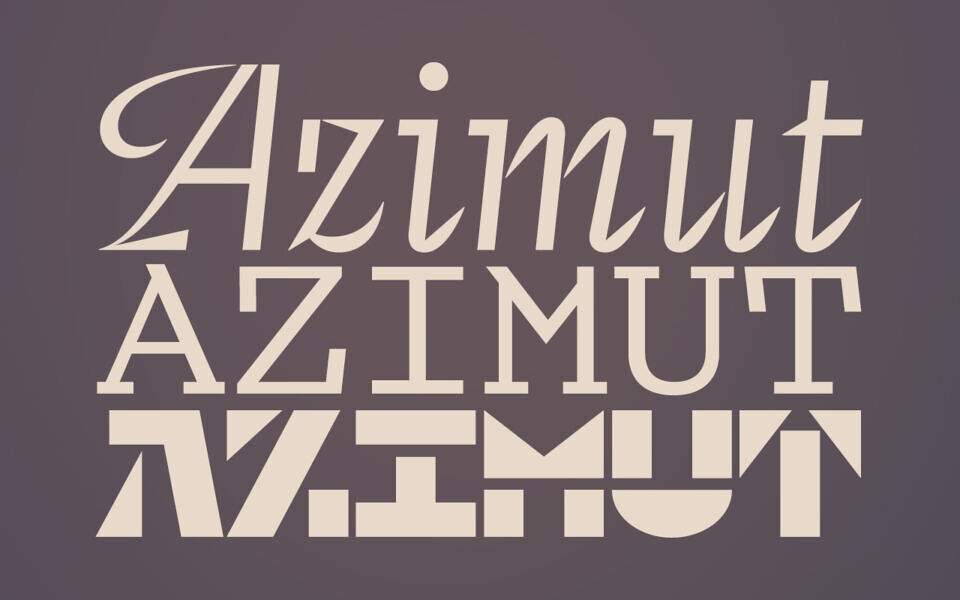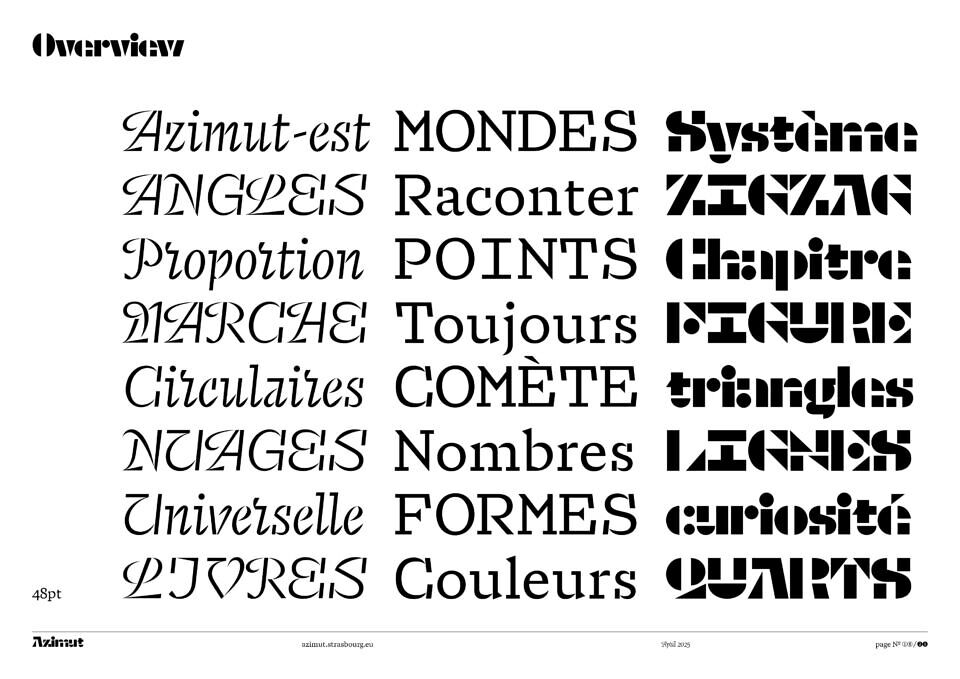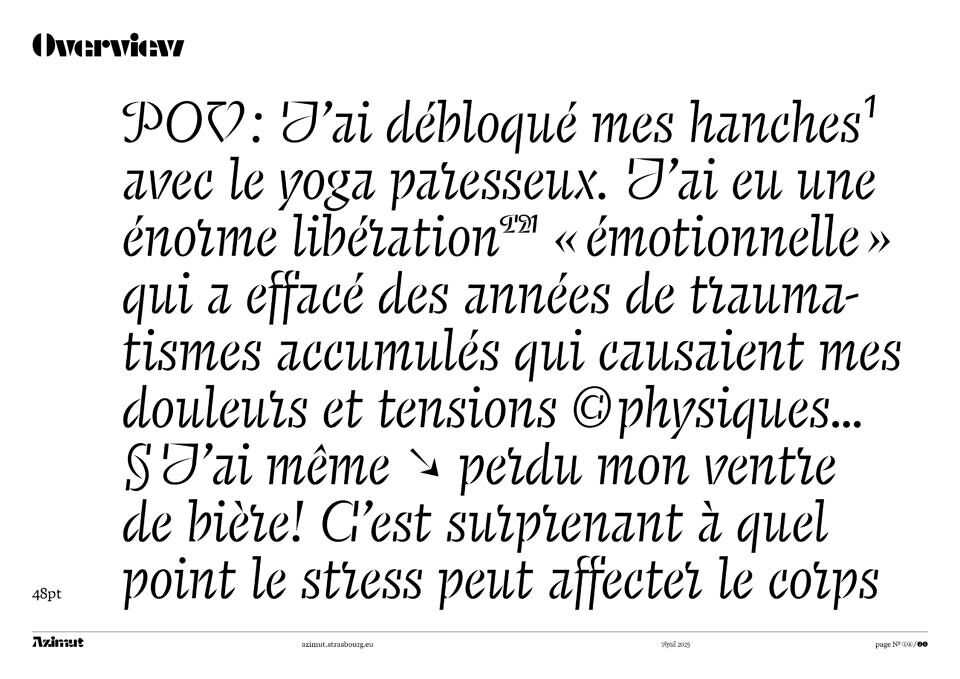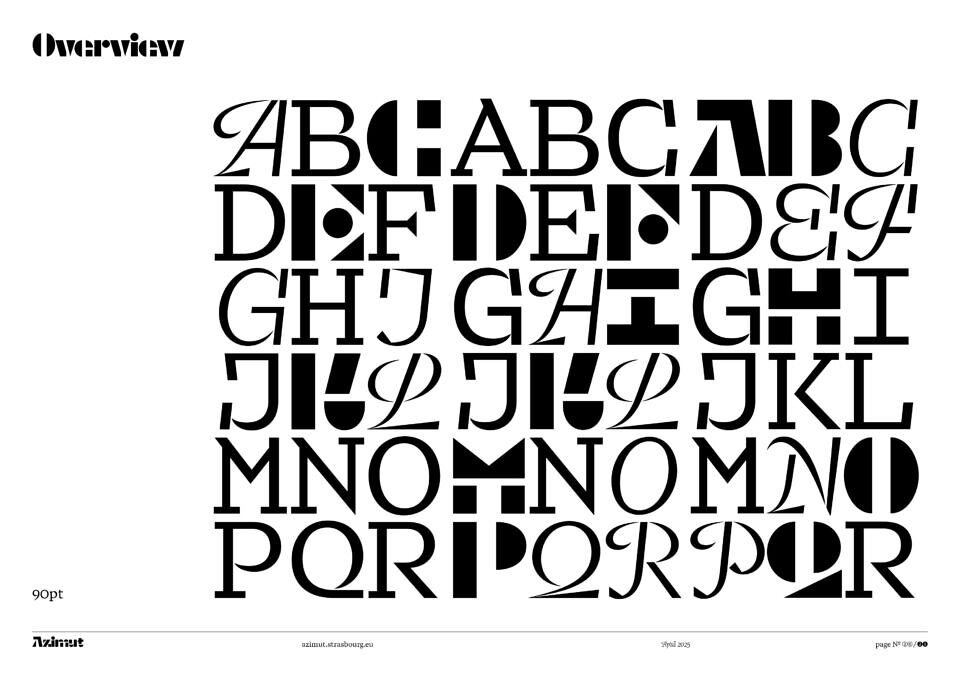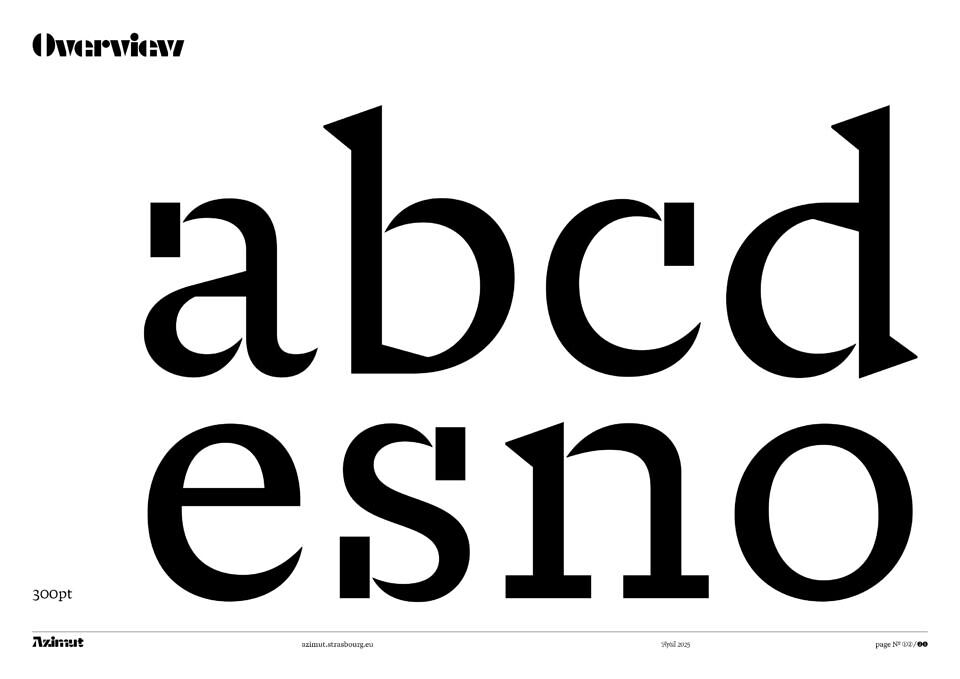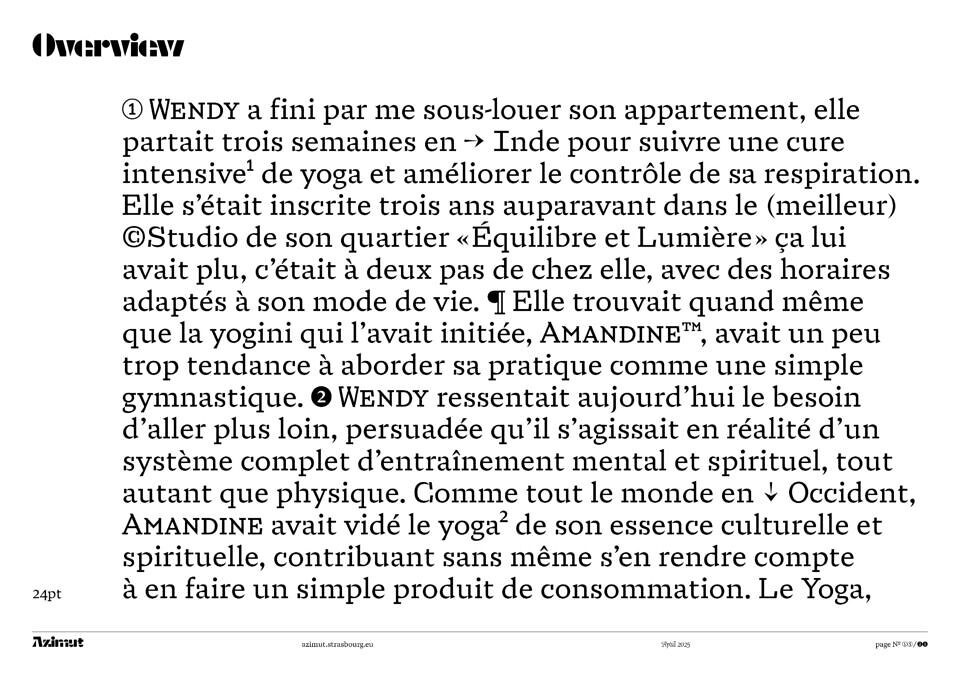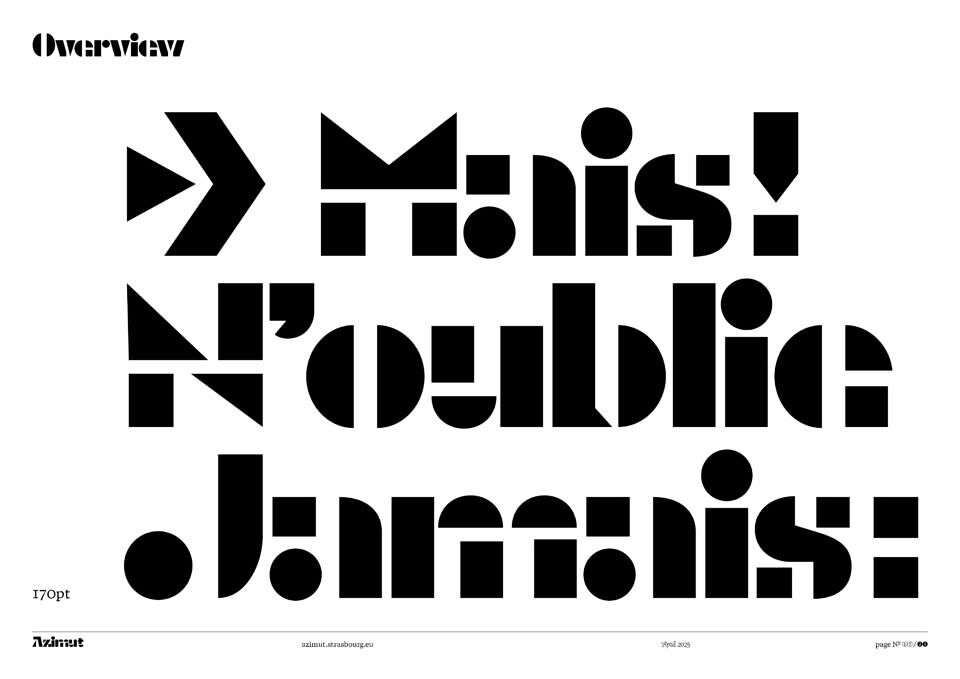
Discover Azimut Font — a free, three-style typographic family blending calligraphic, modular and digital aesthetics. Developed by Benjamin Blaess, Julien Priez and Mathieu Réguer for Strasbourg’s UNESCO World Book Capital project, Azimut comprises Regular, Italic and Bold variants—each radically different yet connected.
The uppercase letters share equal width, enabling bold visual compositions and playful inter-style swaps. Its forms draw on a rich lineage—from Roman inscriptions to modern digital outlines—making Azimut ideal for editorial, cultural or urban design uses.